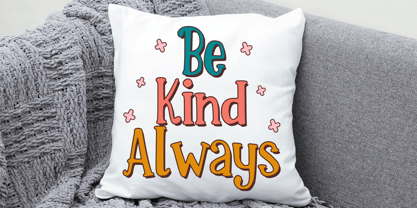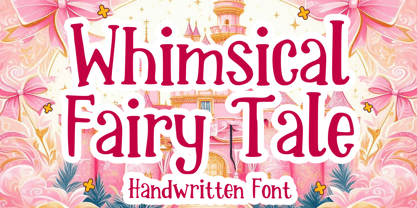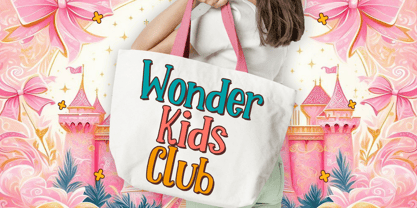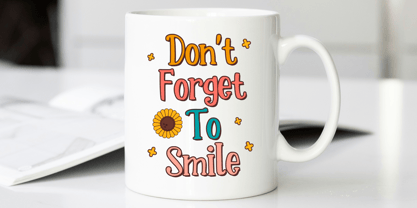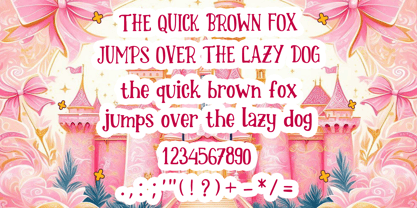
Whimsical Fairy Tale
The Whimsical Fairy Tale Font Family was designed by Gabriel Valentinus and published by Mvmet. Whimsical Fairy Tale contains 1 styles. More about this family
Unleash the magic of Whimsical Fairy Tale, a fantastical handwritten font that captures the humor and joy of classic comics and fairy tales. Imbued with the charm of wonderland, this lighthearted typographic delight sets the stage for extraordinary design endeavors. Watch as this font brings to life myriad creations, from enchanting stickers and apparel designs to eye-catching merchandise and spellbinding logo concepts. Perfect for gracing the covers of magazines and books, illustrating playful comics, and enhancing cartoon artistry, or simply injecting fresh fun into your everyday typing. The Whimsical Fairy Tale font adds an irresistible, cool edge to your design repertoire. Allow this captivating font to ignite your imagination and elevate your projects to unbelievable heights.